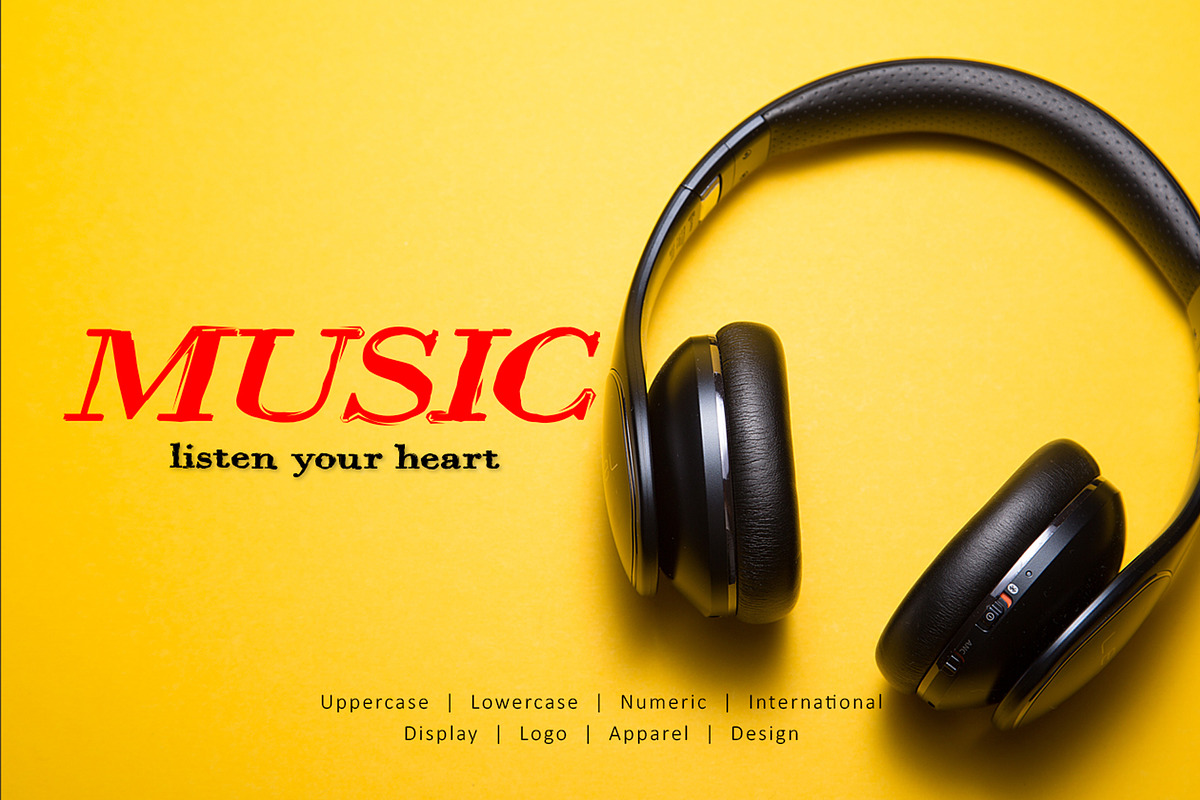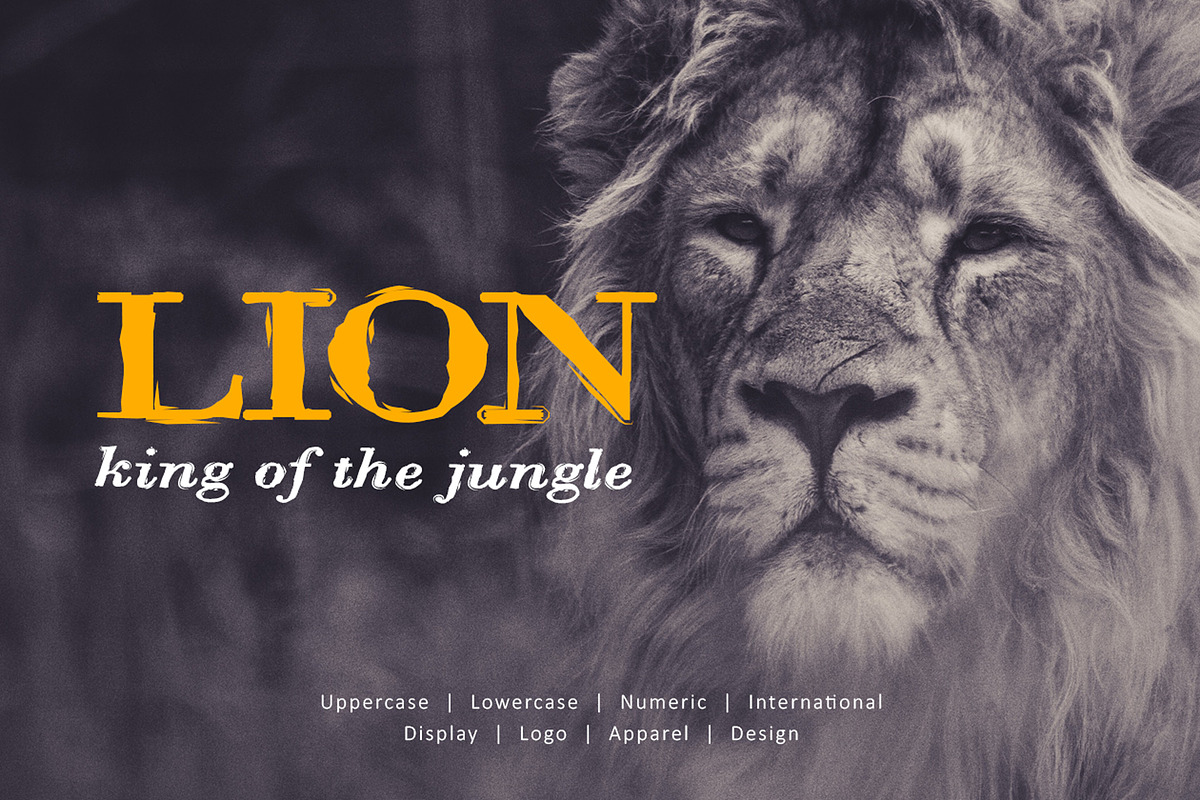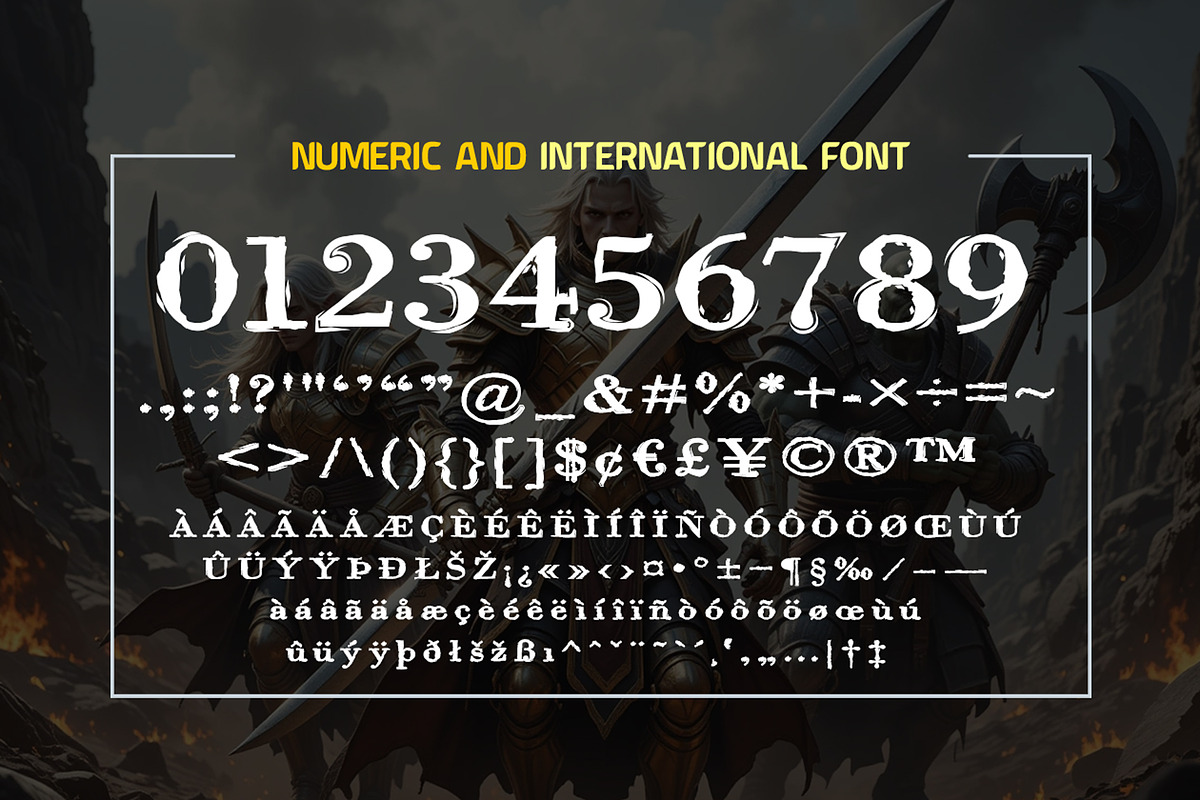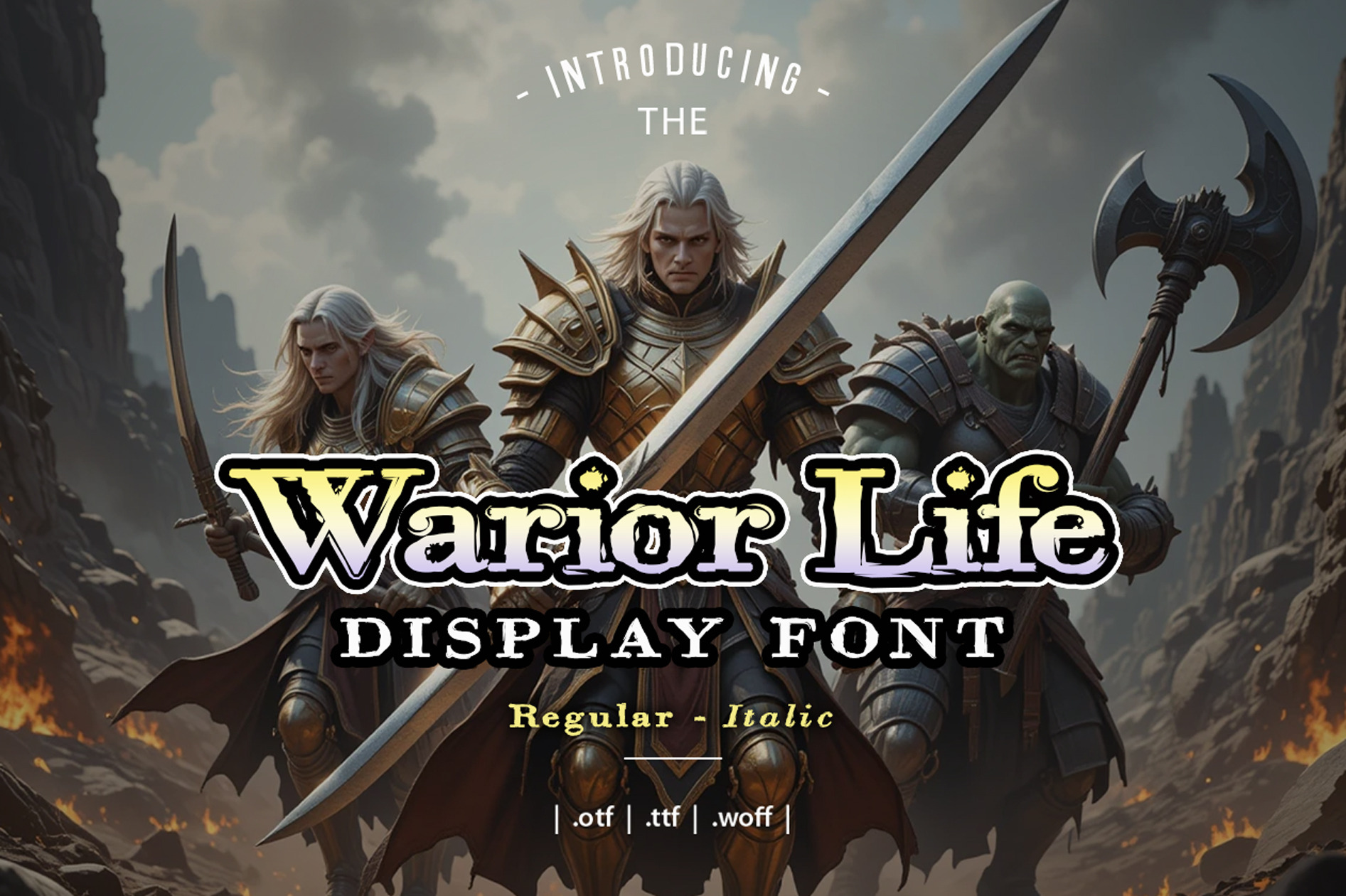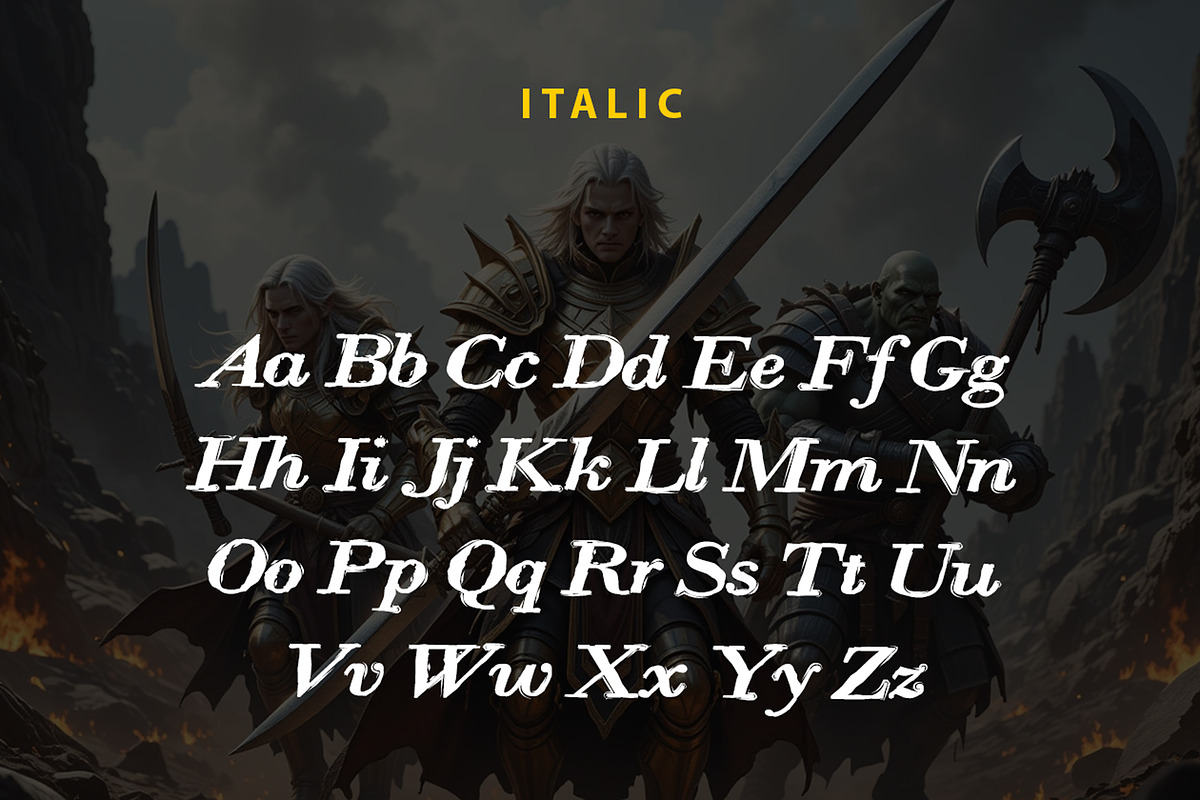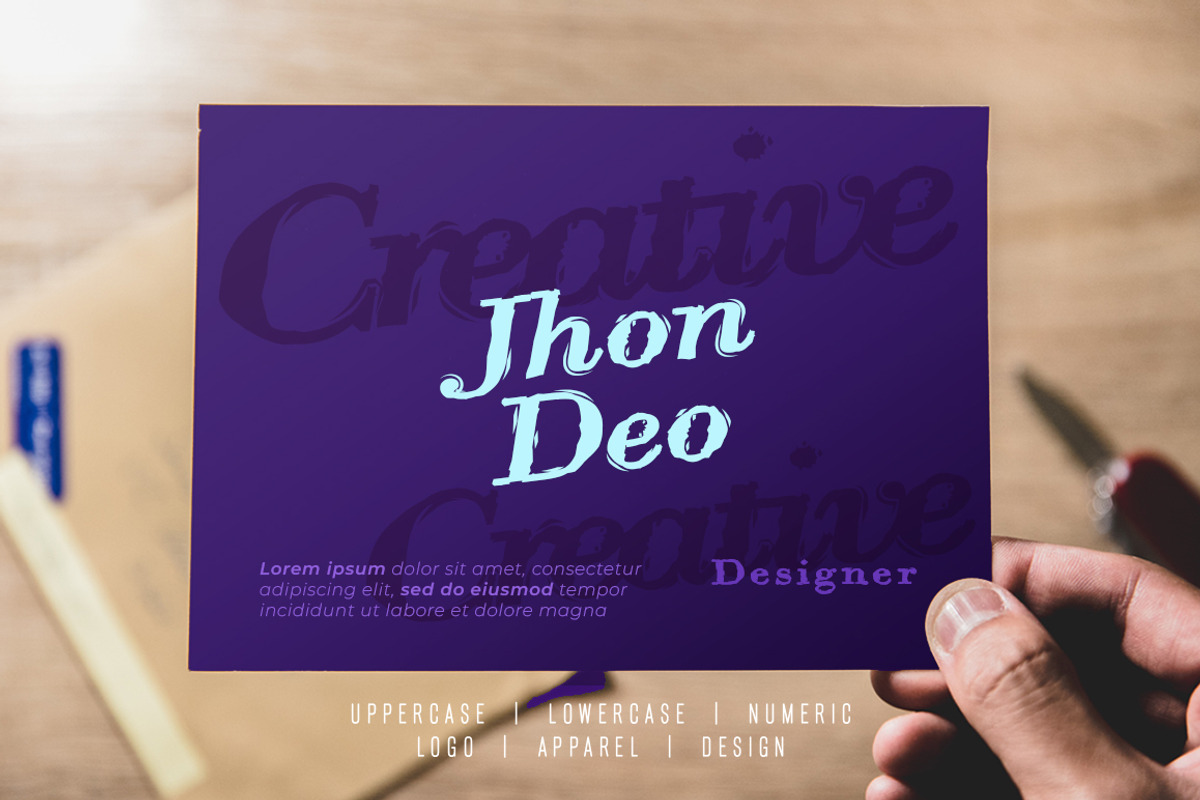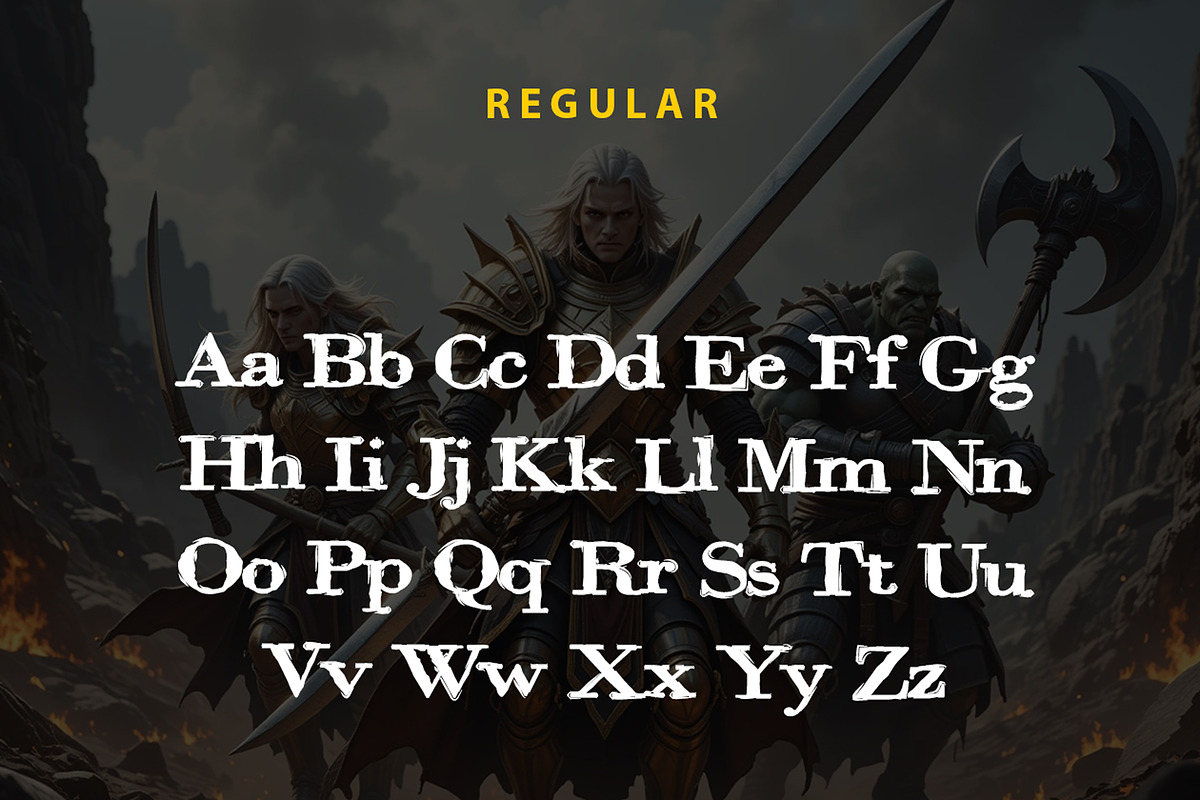
Warrior Life Font
Warrior Life Font very suitable for poster, for logo, music cover, clothing, and many many cool design projects. Warrior Life Font is uppercase, lowercas and numeric.